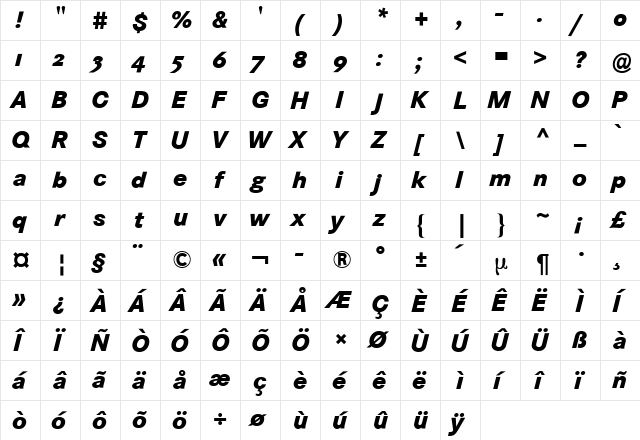
Corporate S Expert BQ Bold Italic
Design Context for Corporate S Expert BQ Typeface
Corporate S Expert BQ offers clean, dependable letterforms without strong stylistic allegiance, making it a practical choice for designers who need flexibility. Its italic angle brings a sense of urgency and motion to the letterforms. Its bold stroke weight gives it real presence on the page.
Pro Tip: Use Corporate S Expert BQ for emphasis, pull quotes, and subheadings where its slanted energy can add rhythm to the layout.